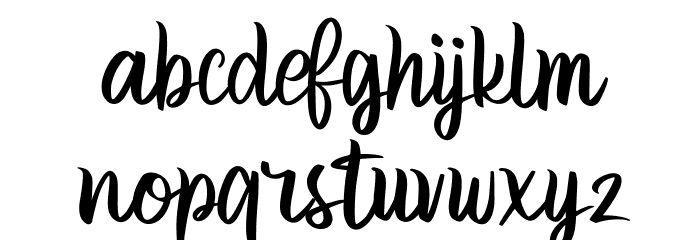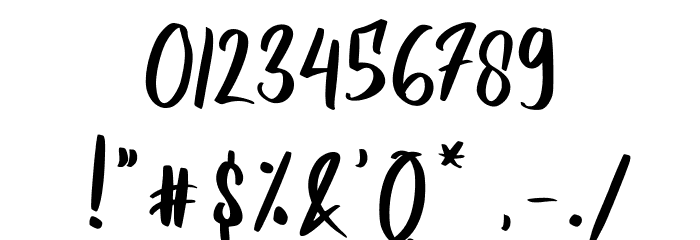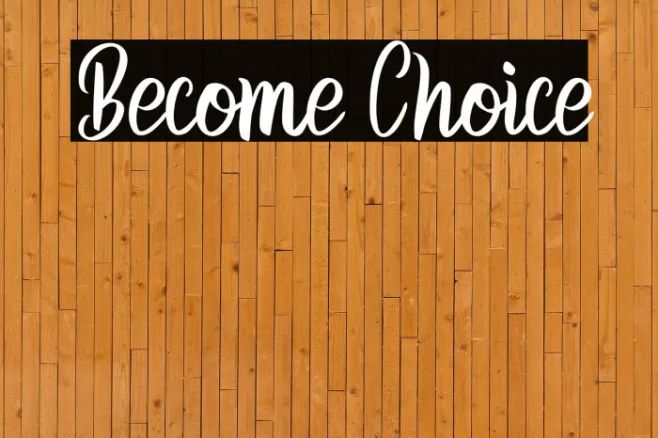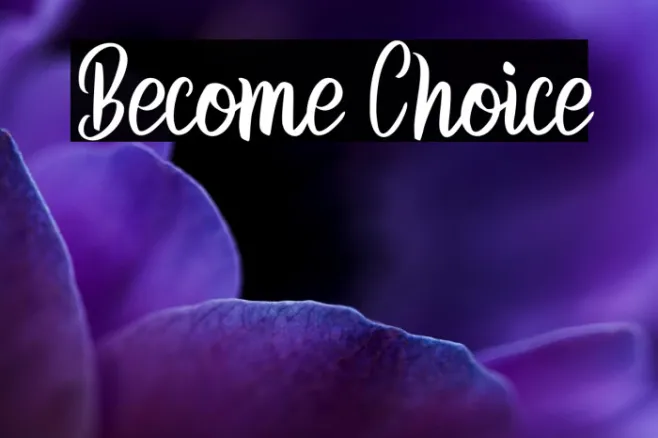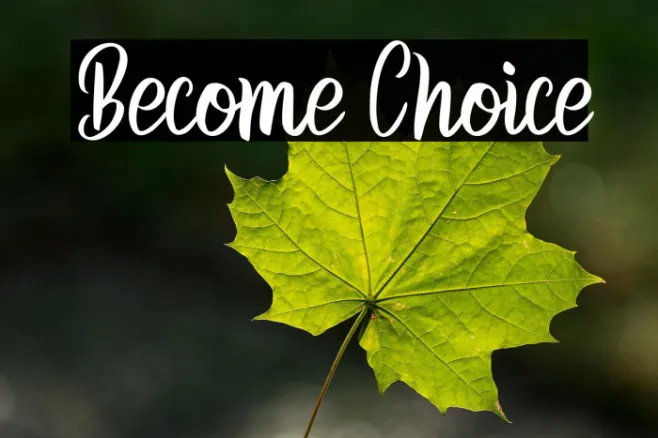
Become Choice Font
This font features a lively and expressive script style, characterized by its fluid and dynamic strokes. The uppercase letters are bold and slightly slanted, giving a sense of movement and energy. The lowercase letters maintain a consistent flow, with rounded edges and a playful touch. Numbers and special characters are crafted with the same attention to detail, ensuring a cohesive look across all elements. The overall appearance is both elegant and approachable, making it suitable for a variety of creative applications.
A lively and expressive script font with fluid, dynamic strokes.
- Proposed Projects: Ideal for wedding invitations, greeting cards, branding projects, and social media graphics.
- Category: Script
- Use Case: Logos, Headlines, Invitations